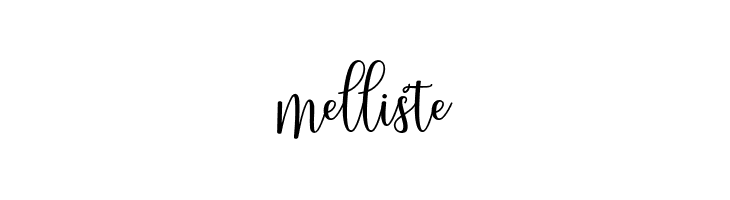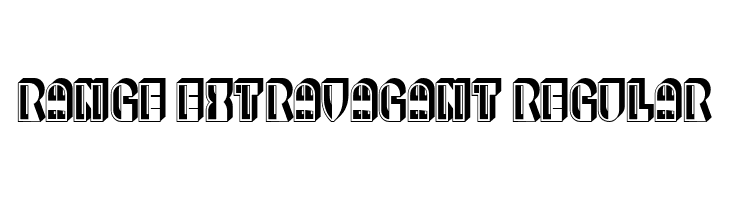
An elegant script font with flowing, cursive letterforms and sophisticated style.
A playful, hand-drawn font with bold, rounded characters and a whimsical style.
A bold, modern font with a distinct outlined style.
A bold, modern font with clean, geometric lines and slightly rounded characters.
A sleek, modern, light italic font with consistent stroke width.
A playful, rounded font with a bold and friendly appearance.
A playful, hand-drawn font with a rough, bold style.
A futuristic and geometric font with sharp angles and dynamic curves.
A bold, italicized font with a modern and dynamic style.
A futuristic, angular italic font with bold strokes and high contrast.
设计师偏爱 claytona, Blank Type Nol, its CLASSY, Johny Palkons and Stinger Trial Light Italic,因为其造型干净、适用范围广—— 从品牌识别到落地页、海报都能胜任。